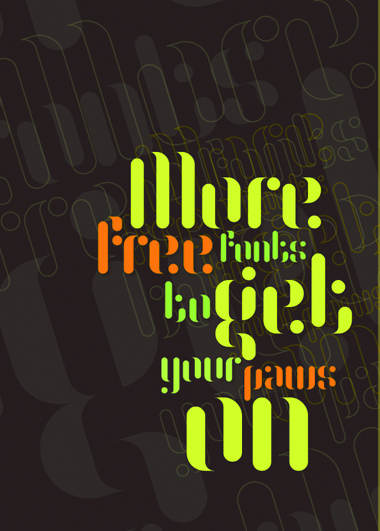
Still a work in progress, so all comments welcomed.
cool work and sample ! i love this djnippa !
Very nice, and surprisingly readable :-)
Sexy.
I like this even more than NCD Amphibian - really delightful. 10/10
NCD Amphibian is cool, but this tops it. Great work.
@ Neurone error. As I stated in my brief, it was slightly influenced by Whoopee, but if you compare them, they are very different. I simply edited NCD Amphibian. Which as you can see Afrojet commented on a long time ago.
@ LexKominek Nice one Lex. It's all about readability in my book.
@ fugitiveglue So you're all about the curves type of guy eh?
@ p2pnut Thanks for the vote. I'm particularly proud of the 'g'.
Congratulations! FontStruct Staff have deemed your FontStruction worthy of special mention. “NCD Amphibian Stencil” is now a Top Pick.
Stellar work dj nippa. May we continue to inform, compliment, remix and explore. I can't get enough.
Cool and elegant. I like both versions. A true highlight of the week. 10/10
If you're having trouble with letter spacing being crunched up on a few characters..... don't worry Superman Rob Meek is on the case. He'll solve it quicker than Sherlock Holmes ever could.
Quite legible. The g is simply amazing.